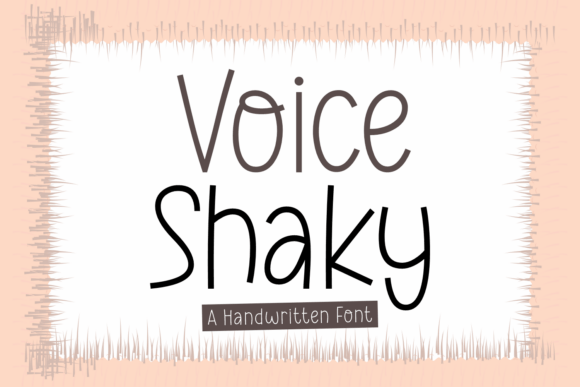
Introducing Voice Shaky Font: Adding a Touch of Whimsy to Your Creative Projects
In the world of typography, fonts play a crucial role in conveying the tone and personality of a message. Whether you’re designing a logo, creating an invitation, or crafting a social media post, the right font can make all the difference. If you’re looking for a font that exudes a playful, human touch, look no further than Voice Shaky Font. In this article, we’ll dive into the unique characteristics of Voice Shaky, its uses, and why it’s perfect for adding charm to your creative projects.
What is Voice Shaky Font?
Voice Shaky is a casual, handwritten font with a playful and imperfect style. Its wobbly lines and uneven strokes give it a quirky, personal touch that’s hard to resist. This font is perfect for those who want to add a lighthearted, human feel to their notes, invitations, or creative projects.
Key Features of Voice Shaky Font
• Playful and Imperfect Style: Voice Shaky’s unique style is characterized by its wobbly lines and uneven strokes, giving it a charming, handmade feel.
• Casual and Handwritten: This font is perfect for creating a relaxed, conversational tone in your designs.
• Quirky and Personal Touch: Voice Shaky’s imperfections make it feel more personal and human, adding a touch of whimsy to your projects.
Uses of Voice Shaky Font
Voice Shaky is a versatile font that can be used in a variety of creative projects, including:
• Notes and Invitations: Add a personal touch to your notes and invitations with Voice Shaky’s playful, handwritten style.
• Creative Projects: Use Voice Shaky to add a lighthearted, human feel to your creative projects, such as brochures, posters, or social media graphics.
• Branding and Packaging: Voice Shaky can be used to create a unique and memorable brand identity, especially for businesses that want to convey a playful, approachable tone.
Benefits of Using Voice Shaky Font
So, why choose Voice Shaky Font for your creative projects? Here are some benefits of using this unique font:
• Adds a Personal Touch: Voice Shaky’s imperfections make it feel more personal and human, adding a touch of warmth to your designs.
• Creates a Playful Tone: This font is perfect for creating a playful, lighthearted tone in your designs, making it ideal for projects that require a more relaxed approach.
• Versatile and Adaptable: Voice Shaky can be used in a variety of creative projects, from notes and invitations to branding and packaging.
Tips for Using Voice Shaky Font
To get the most out of Voice Shaky Font, here are some tips to keep in mind:
• Use it for Headings and Titles: Voice Shaky is perfect for headings and titles, where its playful style can make a big impact.
• Pair it with Other Fonts: Experiment with pairing Voice Shaky with other fonts to create a unique and visually appealing design.
• Don’t Overuse it: While Voice Shaky is a beautiful font, it’s best to use it sparingly to avoid overwhelming your design.
In conclusion, Voice Shaky Font is a unique and versatile font that can add a touch of whimsy to your creative projects. Its playful, handwritten style and imperfections make it feel more personal and human, perfect for creating a lighthearted, conversational tone. Whether you’re designing notes, invitations, or creative projects, Voice Shaky is a great choice for adding charm and personality to your designs.
• What is Voice Shaky Font?
Voice Shaky is a casual, handwritten font with a playful and imperfect style.